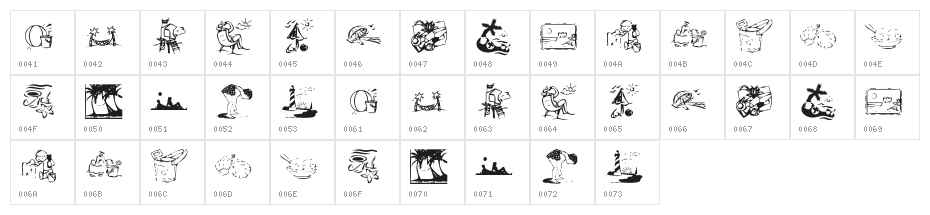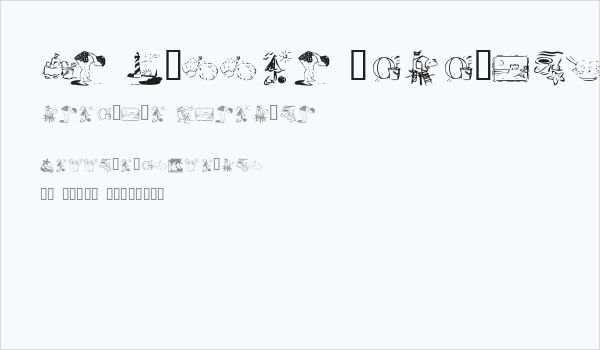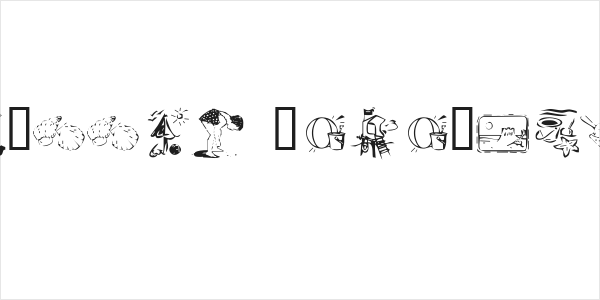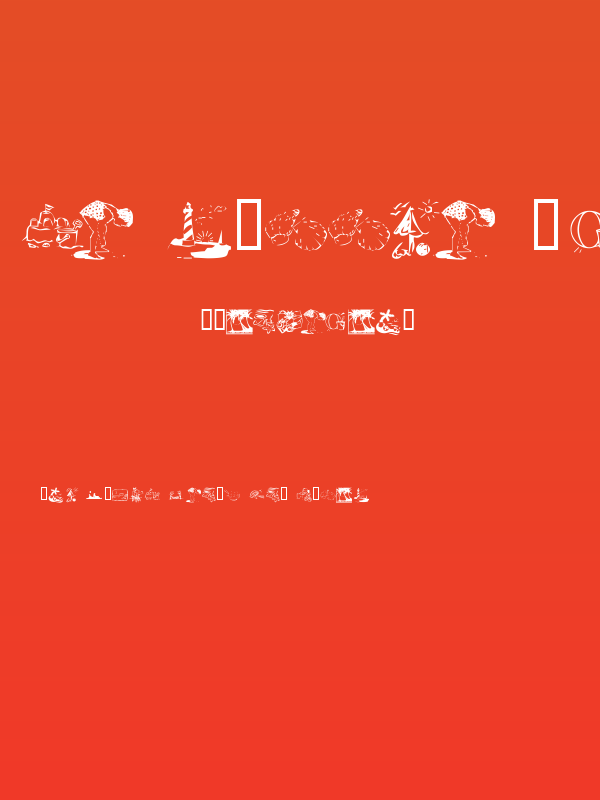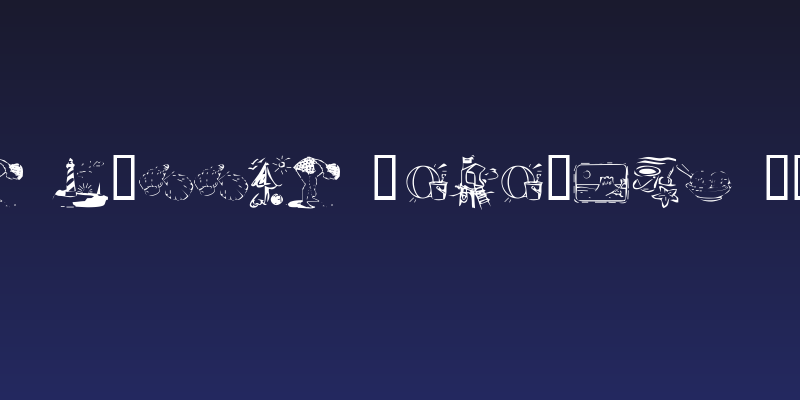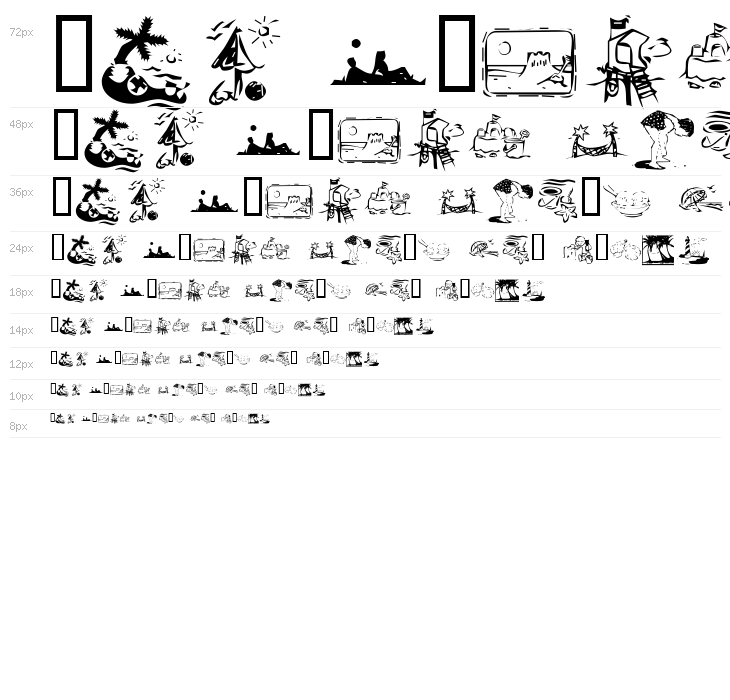
KR Summer Vacation 2002 Font
KR Summer Vacation 2002 Description
This is a decorative font featuring a series of playful and whimsical summer-themed illustrations. Each character is represented by a unique graphic, such as beach scenes, palm trees, ice cream, and other vacation-related imagery. The style is bold and cartoonish, with a strong emphasis on fun and leisure. The characters are detailed and filled with summer vibes, making them perfect for projects that aim to capture the essence of a sunny getaway.
| Use Case | Logos, Posters, Decorative elements |
| Proposed Projects | Ideal for summer event posters, vacation brochures, children's books, and playful graphic design projects. |